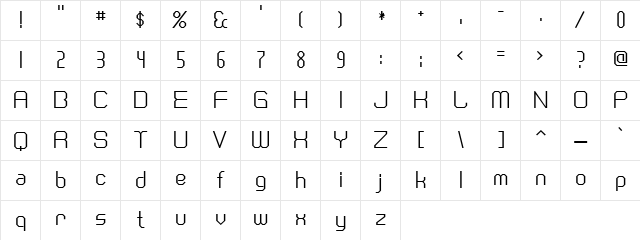
Miha Face Regular
Design Context for Miha Face Typeface
Miha Face takes a measured approach to typography — its balanced proportions and neutral character make it a reliable workhorse for both digital and print work.